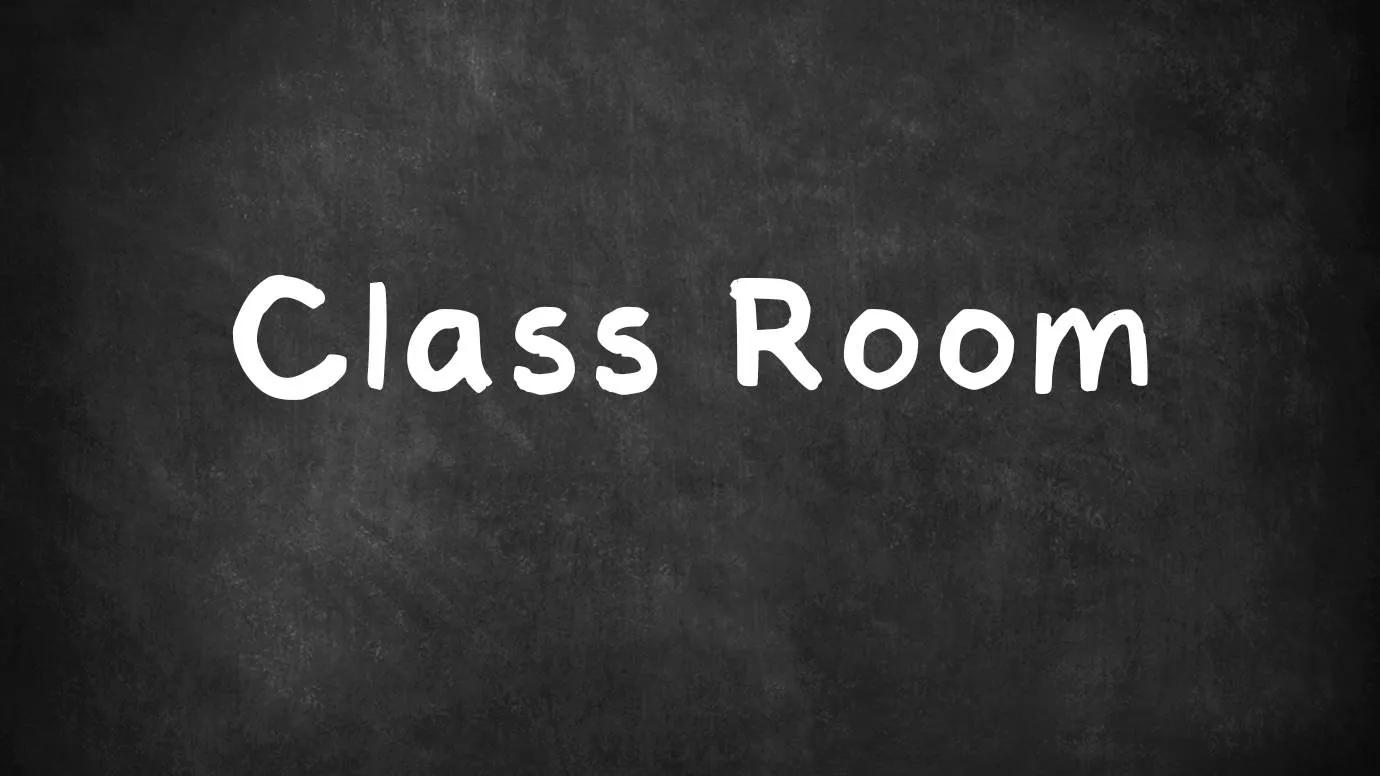
Chalkboard Font is a script design that was created by Florence S. The unique glyphs of this font can be utilized to make incredible new designs. The characters in this font have a unique appearance, making it a beautiful typeface.
This graphic design is used in the majority of major languages because of its individuality and clarity. Users can try this typeface using a free program called the generator tool that was developed by the font’s designer.
You can implement its special symbols to create any kind of project. All letter types, both capital and lower letters are also included in the font stylings.
It also includes standard capitalization, variations, fashionable substitutes, and numbers. The font type may be used to create various CSS designs.
With the help of this amazing typeface, you can grab the attention of your clients and admirers of this warm typeface. Beautiful card designs, attractive banner designs, and attractive text designs can all be made using it.
It is also suitable for creating gorgeous designs that have enjoyed great success in the design sector. For making logos for official papers, social media posts, websites, and many other forms of official graphics, this typeface is perfect.
When choosing this typeface, the headers and media stories of many official web and blogging designs look the finest. Many designers use its advanced capabilities, which give your creations an amazing finishing touch. If you desire to make your design project more captivating, I recommend pairing this font with a unique typeface such as the brix slab font.
Characteristics of Chalkboard Font
A lovely typeface with over a hundred characters, including punctuation, numerals, icons, and uppercase letters. It supported OTF and TTF Format. You can use this typeface to make your projects attractive with its unique style.
Because of its stylish glyphs, it is perfect for use in food design and naming, this font is also suitable for logos. The font is very popular among designers and is used for web development and design.
Is Chalkboard Font easy to read?
Yes It can make your design easy to read for visitors. You can easily create a very elegant design with the help of its stylish texture.